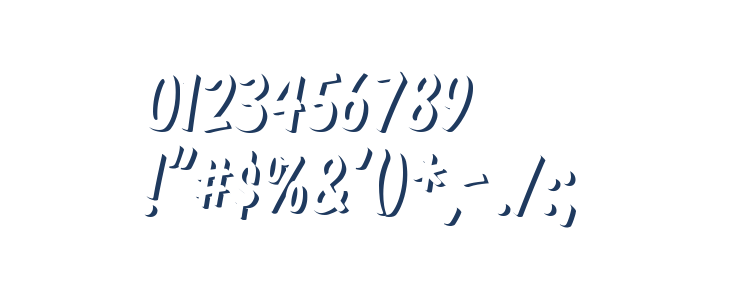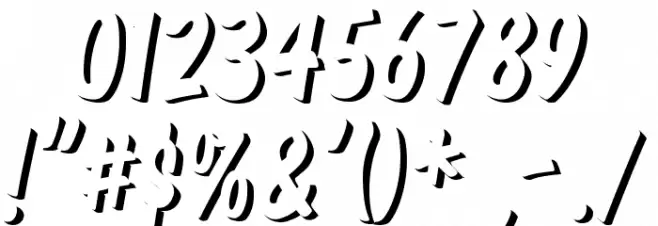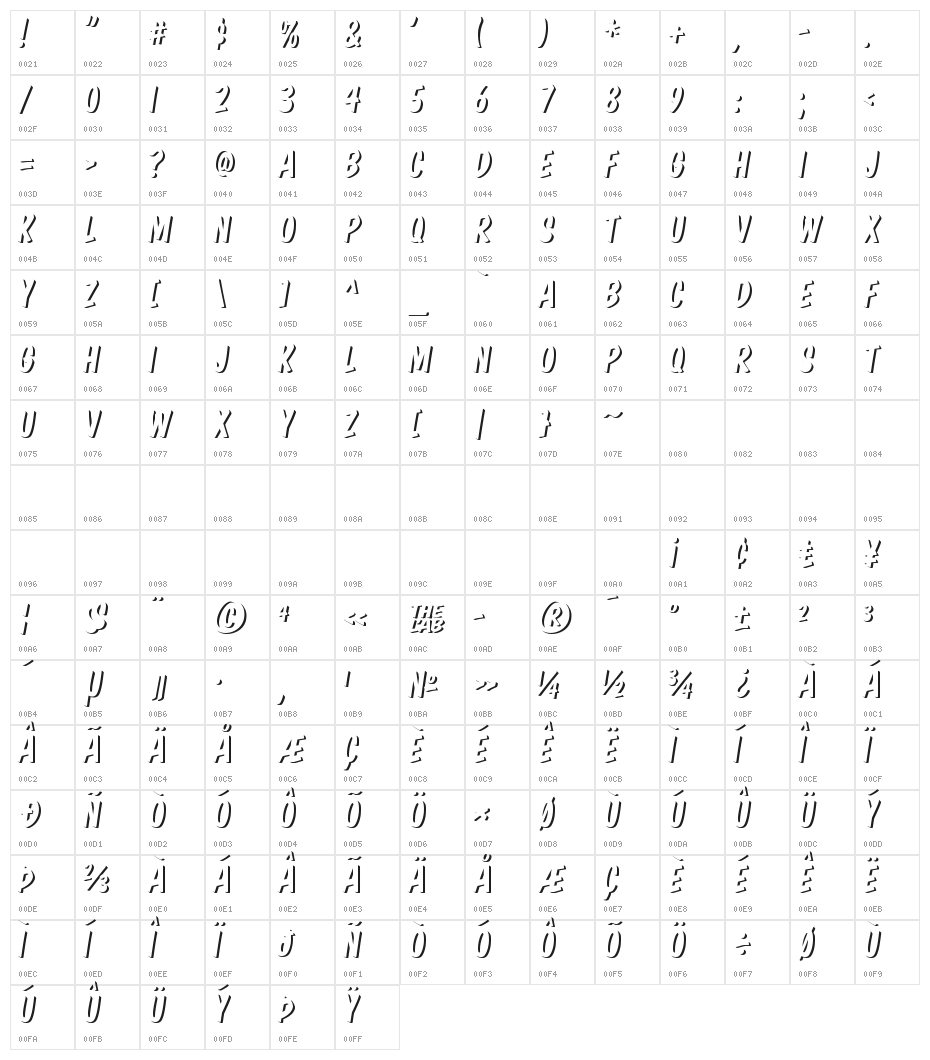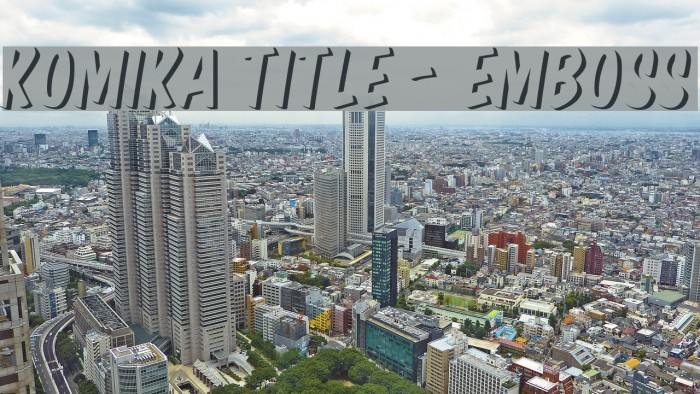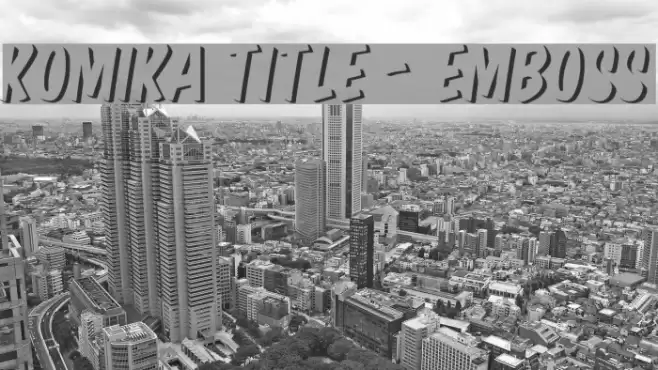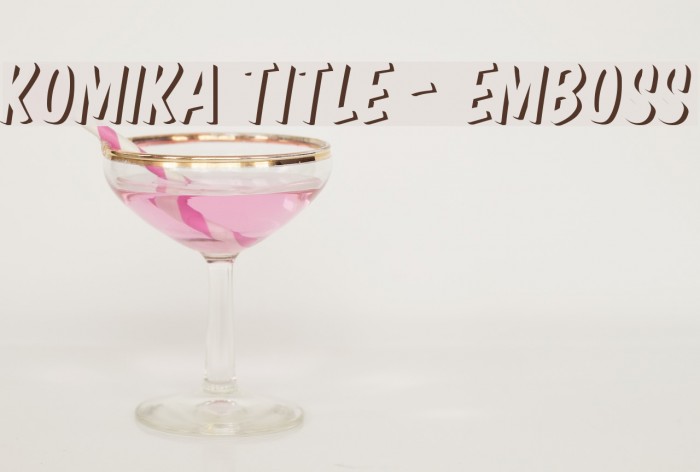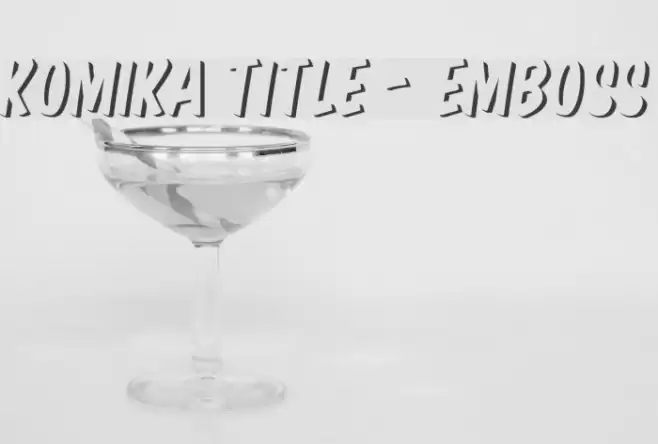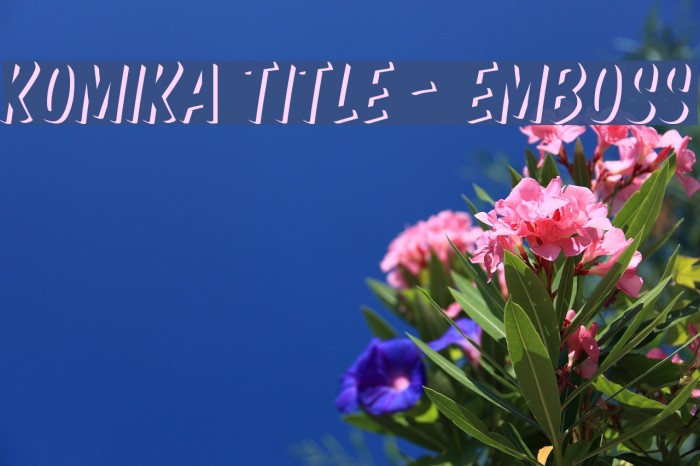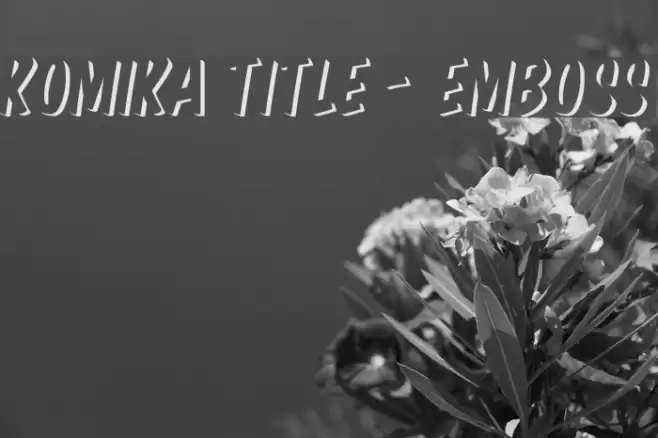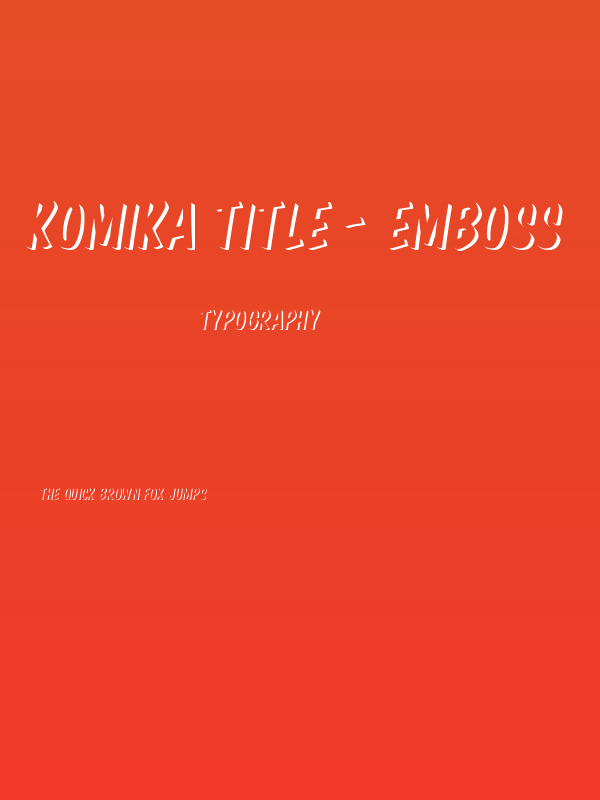
Komika Title - Emboss Font
Komika Title - Emboss Description
This font features a bold, dynamic style with a three-dimensional embossed effect that gives it a striking appearance. The characters are uppercase and lowercase letters, numbers, and a selection of special characters. Each letter has a shadow that enhances the embossed look, creating a sense of depth and movement. The strokes are thick and consistent, with a slight slant that adds to the energetic feel. This font is ideal for projects that require a strong visual impact, such as comic book titles, posters, or any design that needs to stand out with a playful yet assertive tone.
| Proposed Projects | Comic book titles, posters, logos, and any design needing a bold, playful impact. |